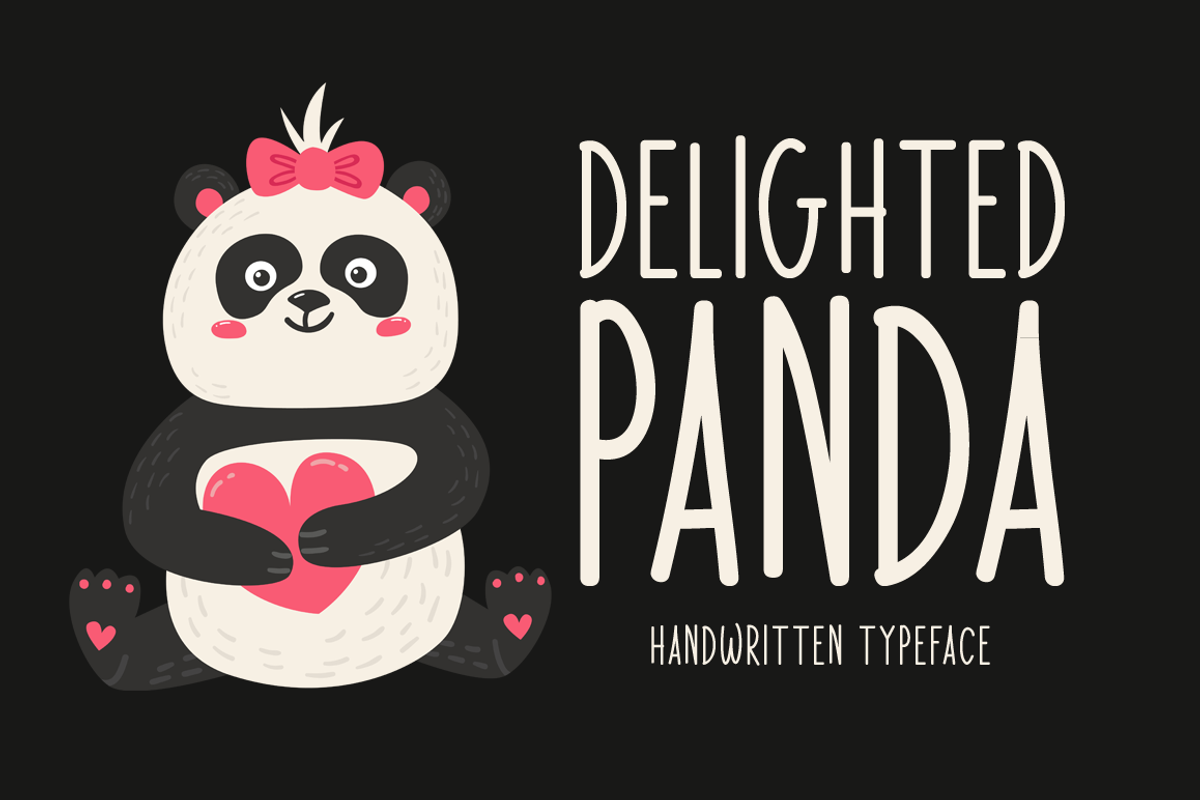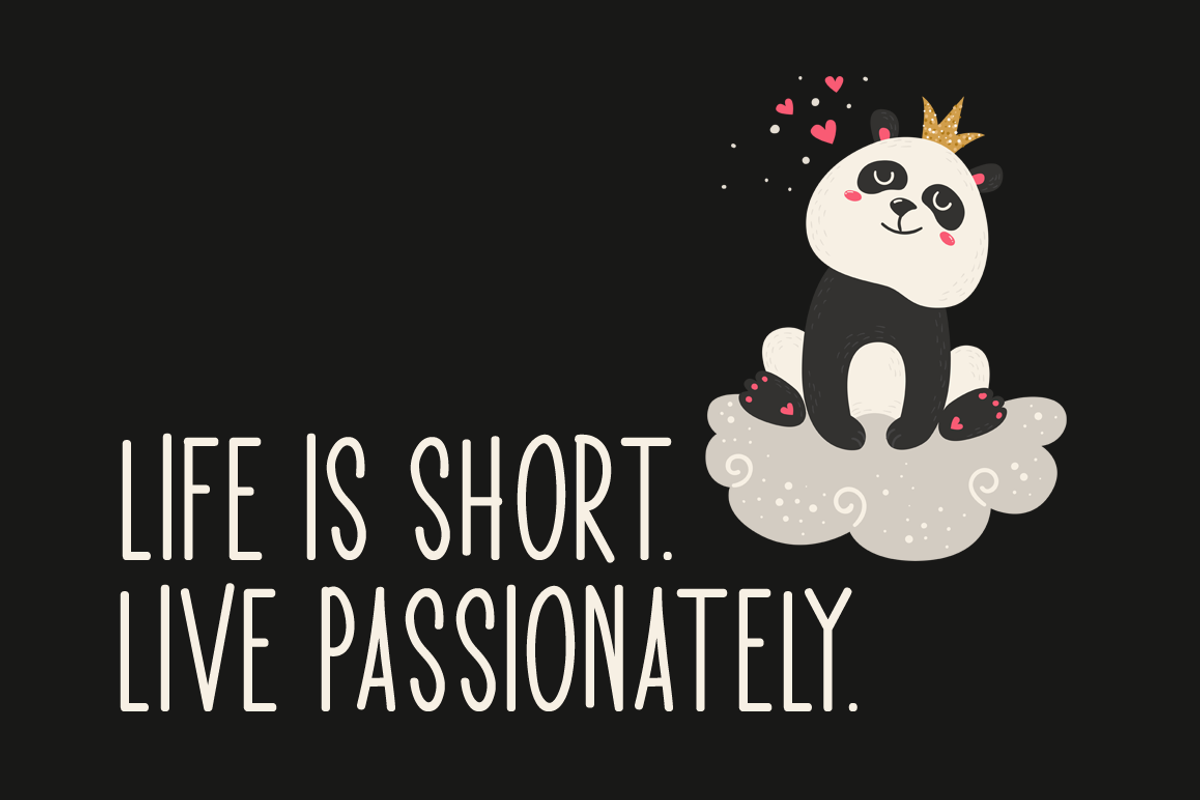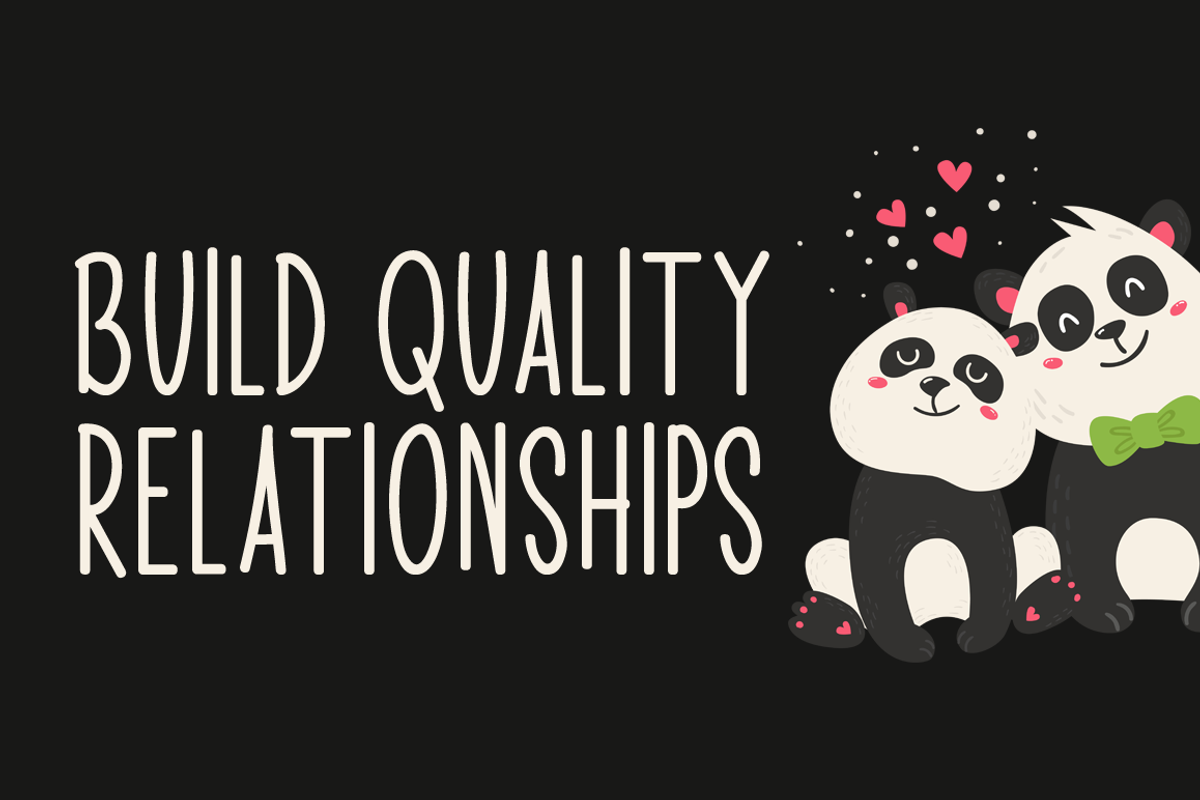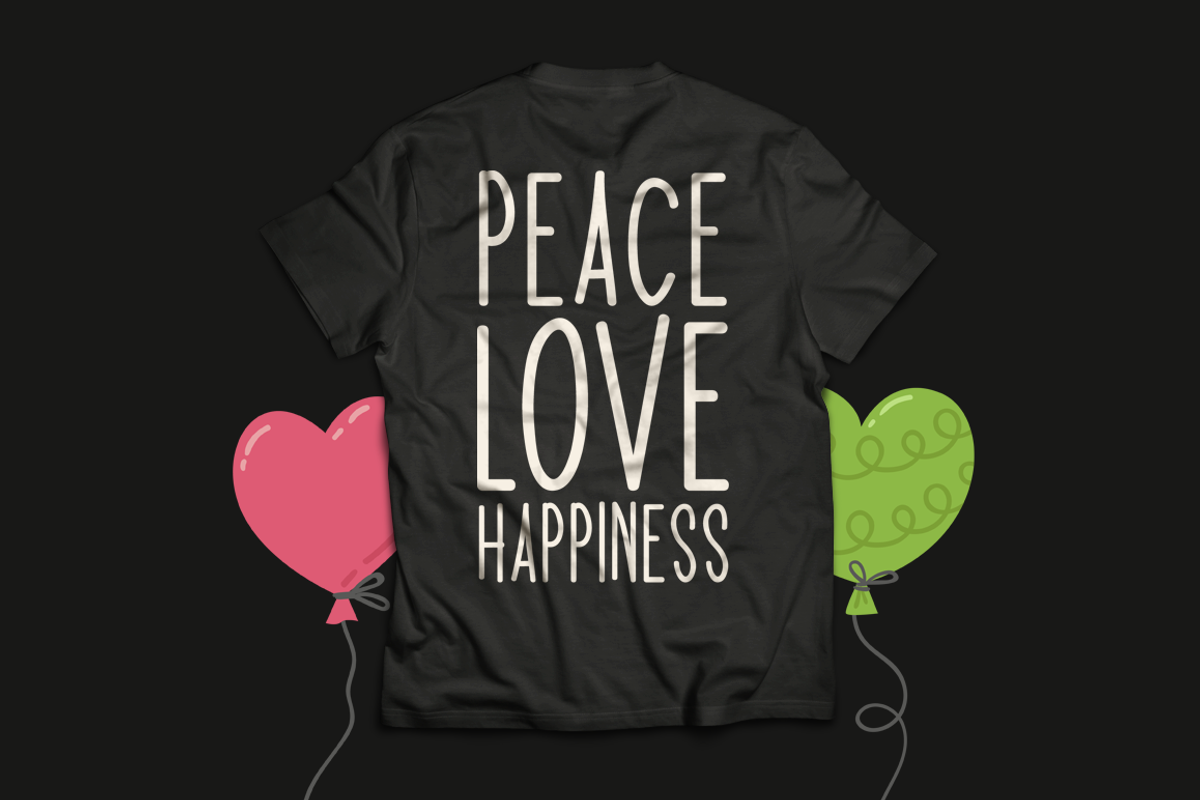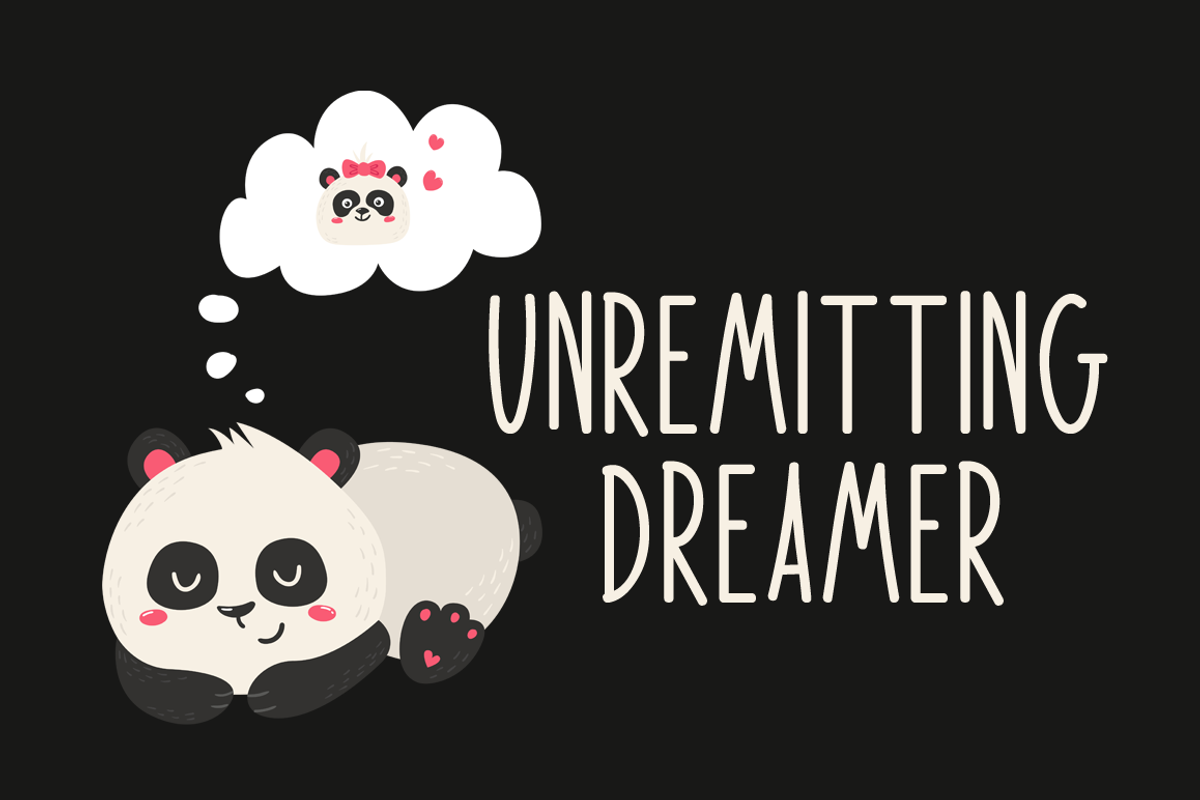
Delighted Panda Typeface
Introducing Delighted Panda!
Delighted Panda is a sweet and simple handwritten font. Its natural and unique style makes it incredibly fitting to a large pool of designs. The only limit is your imagination!